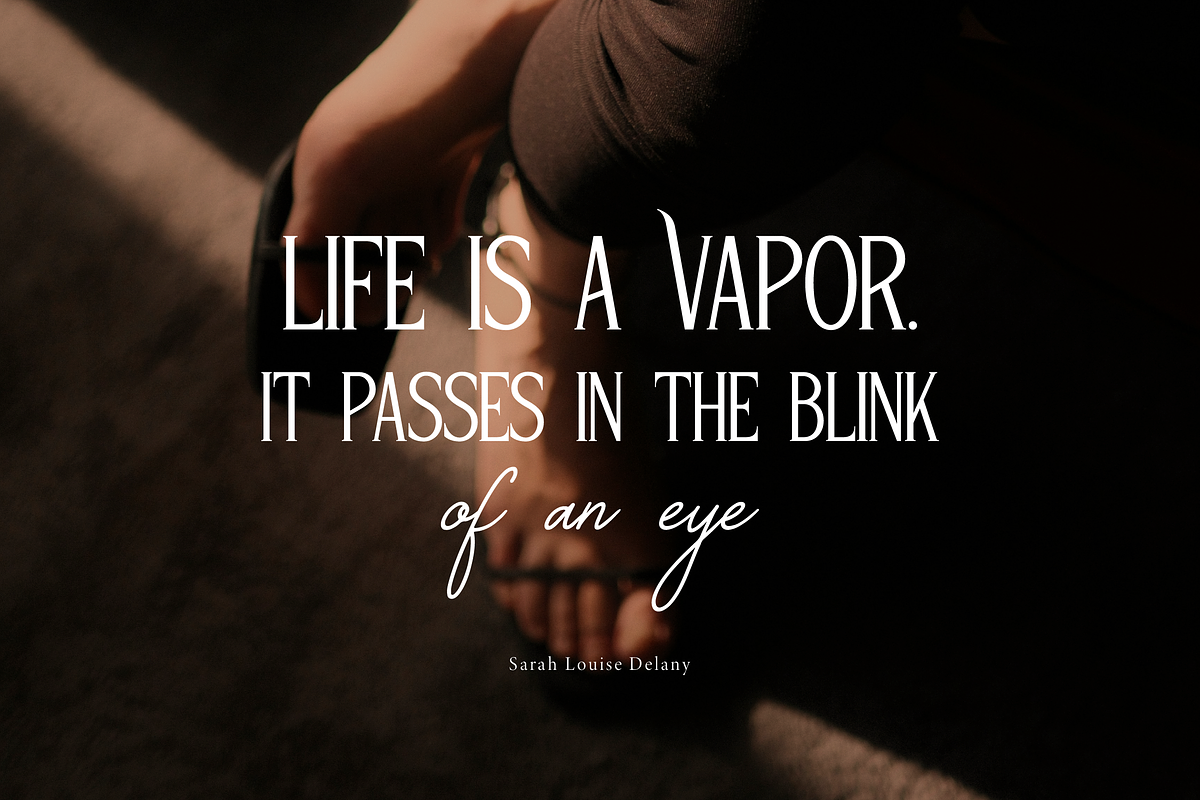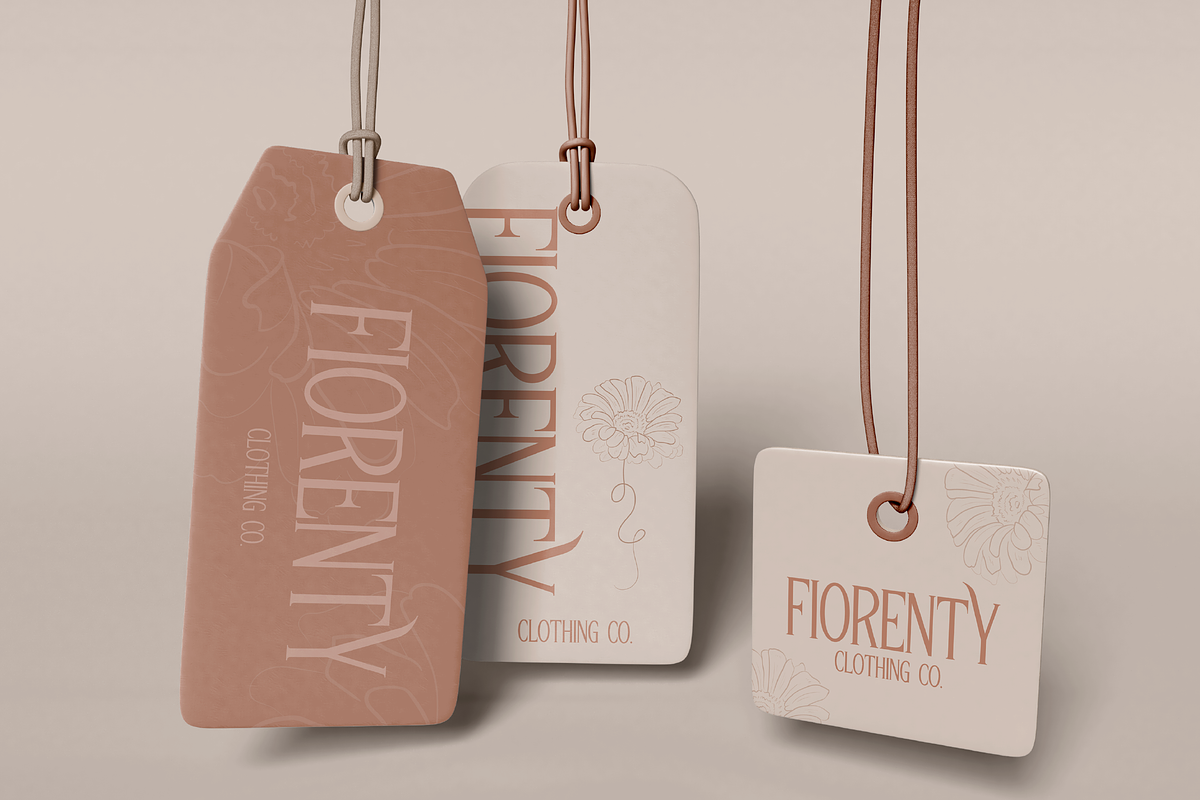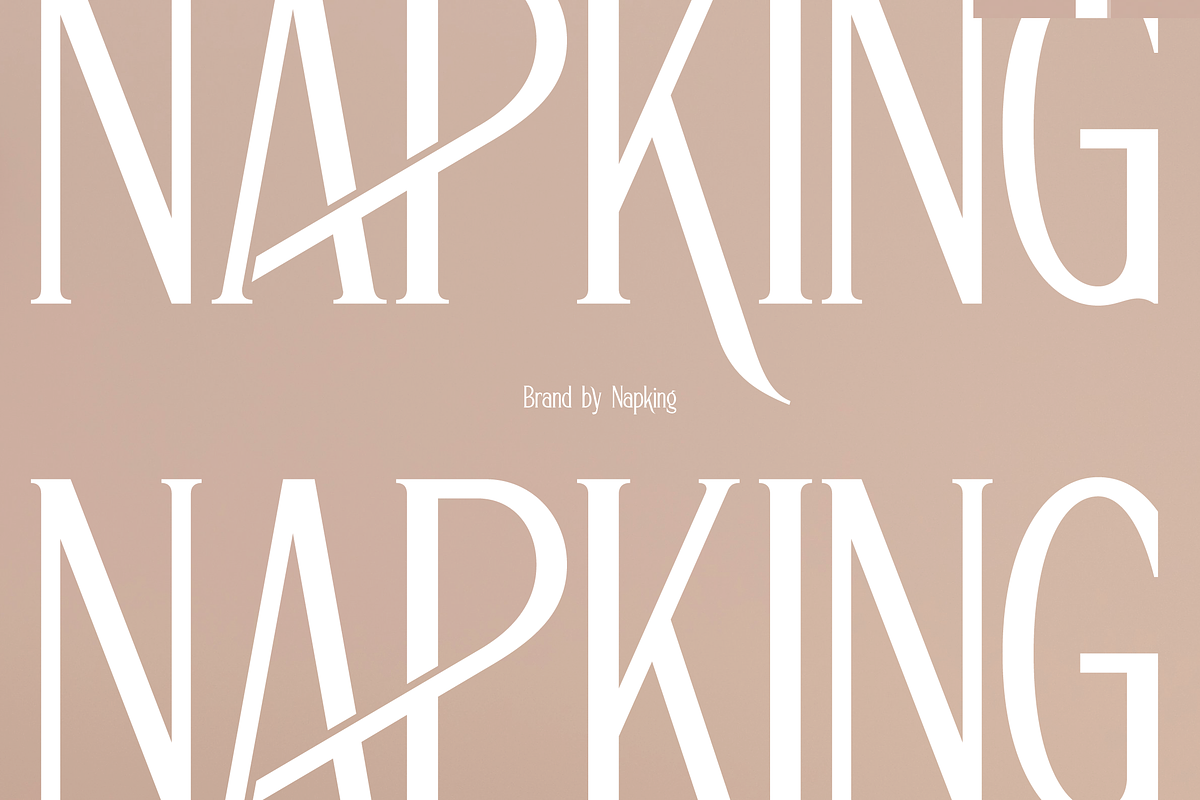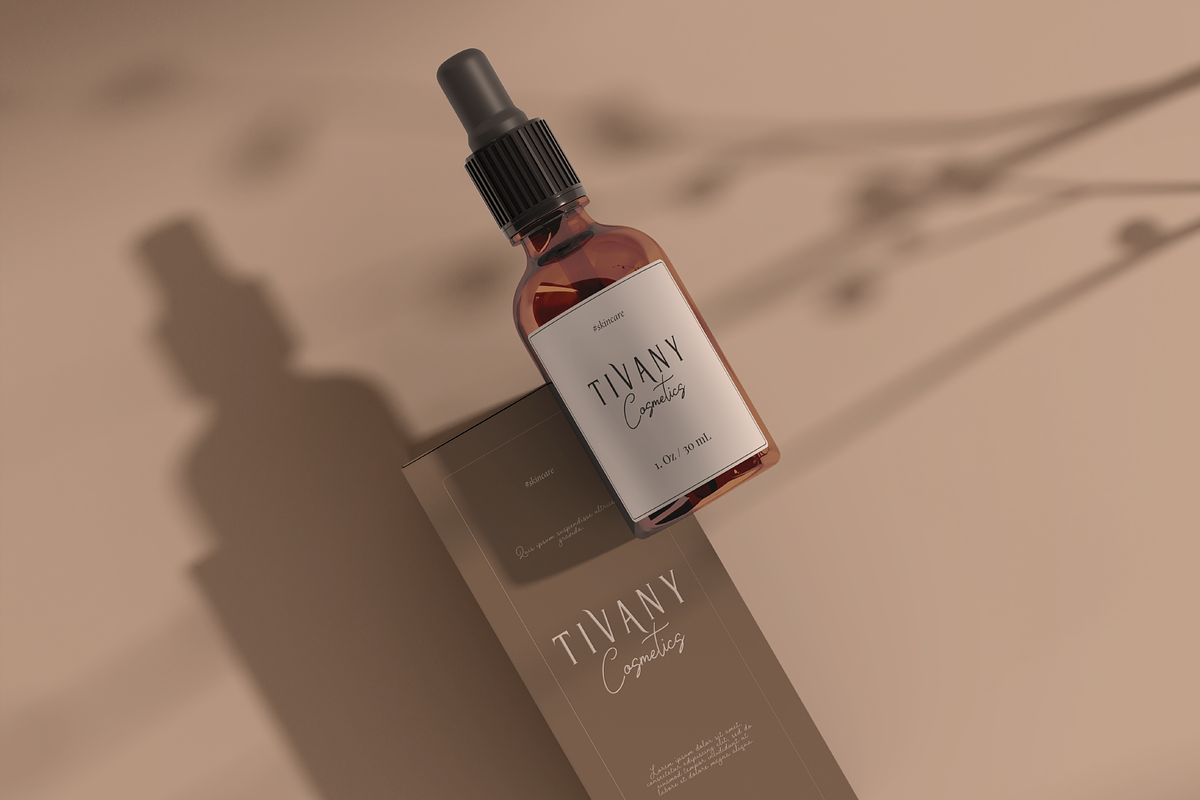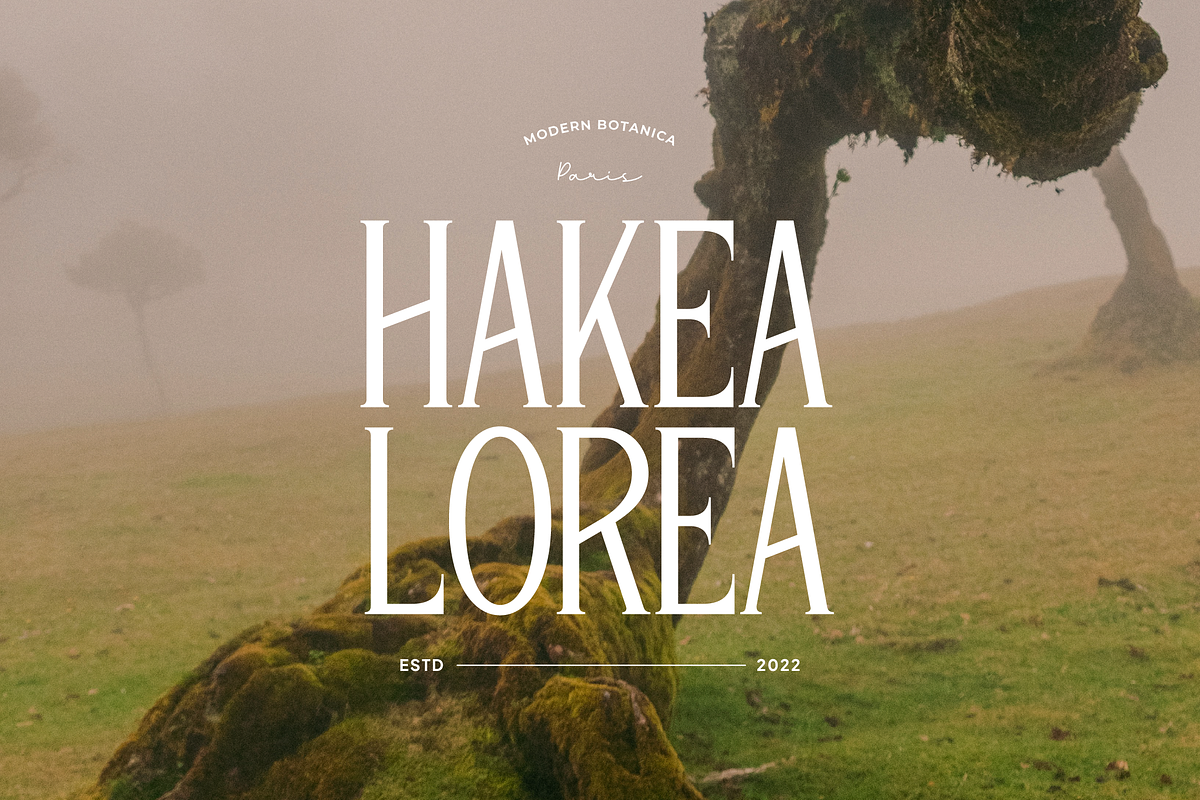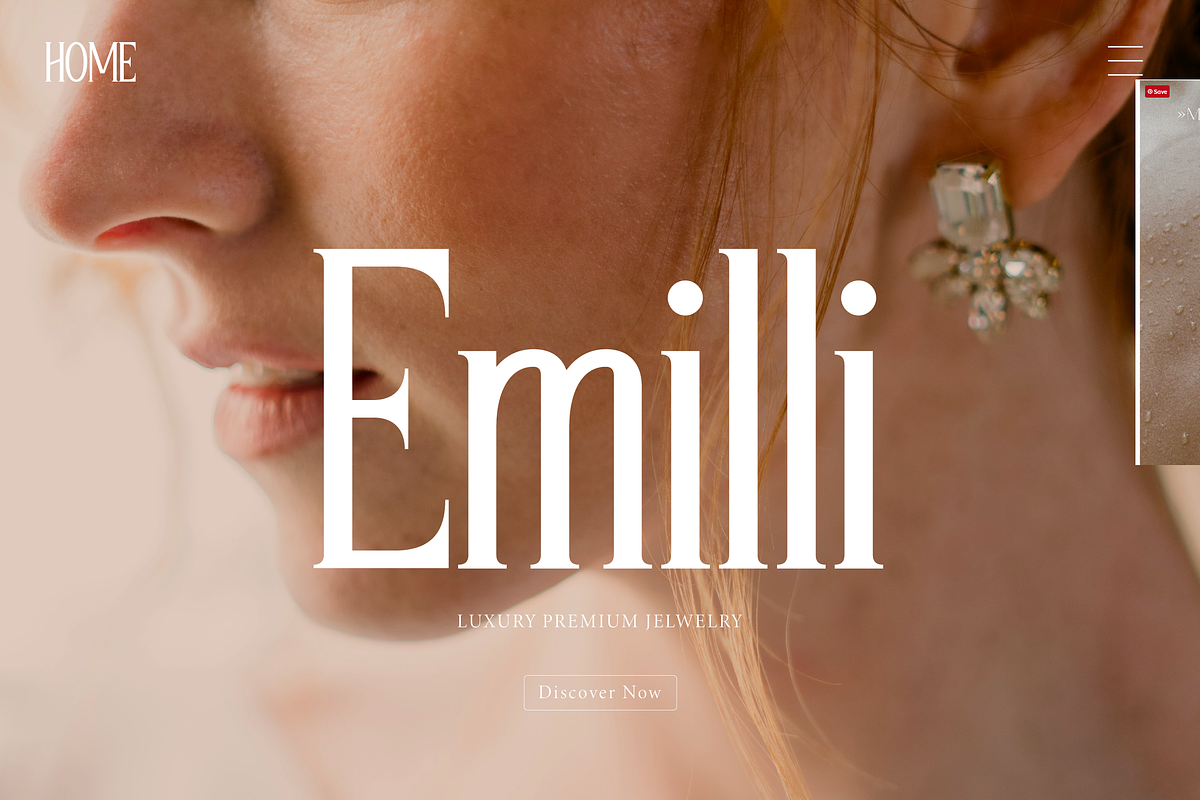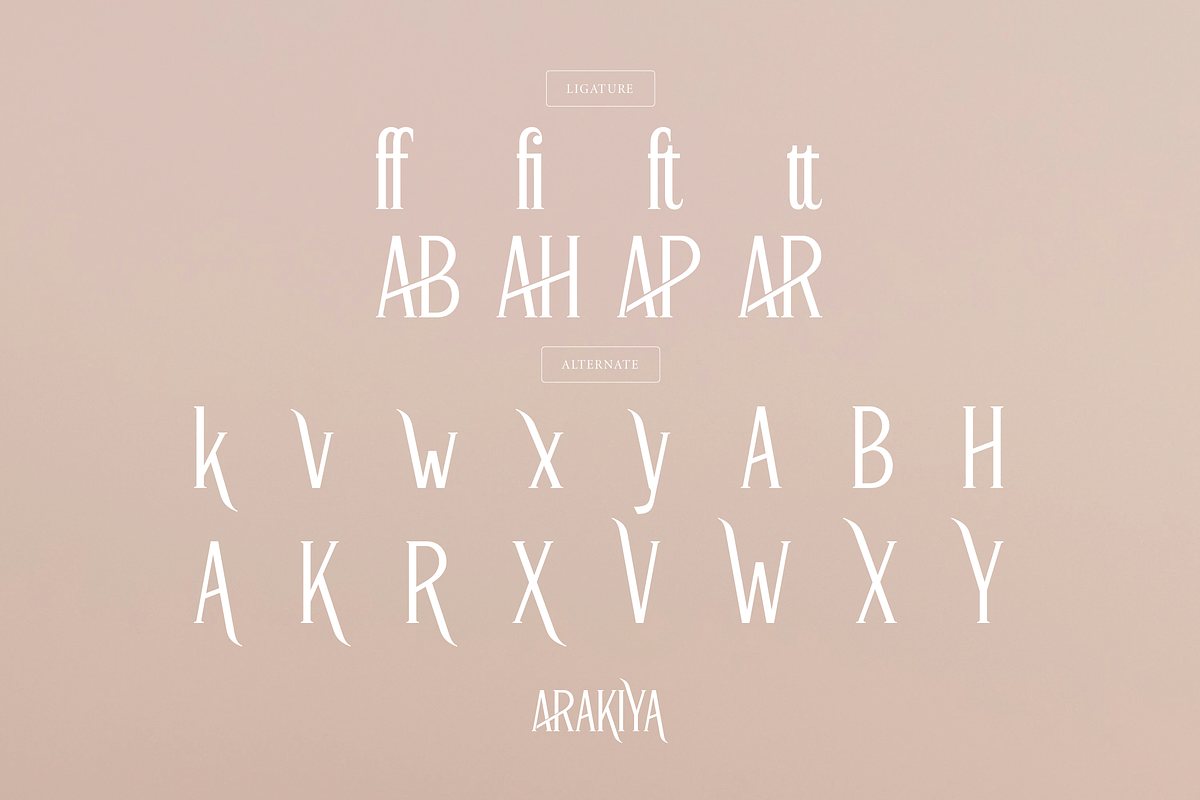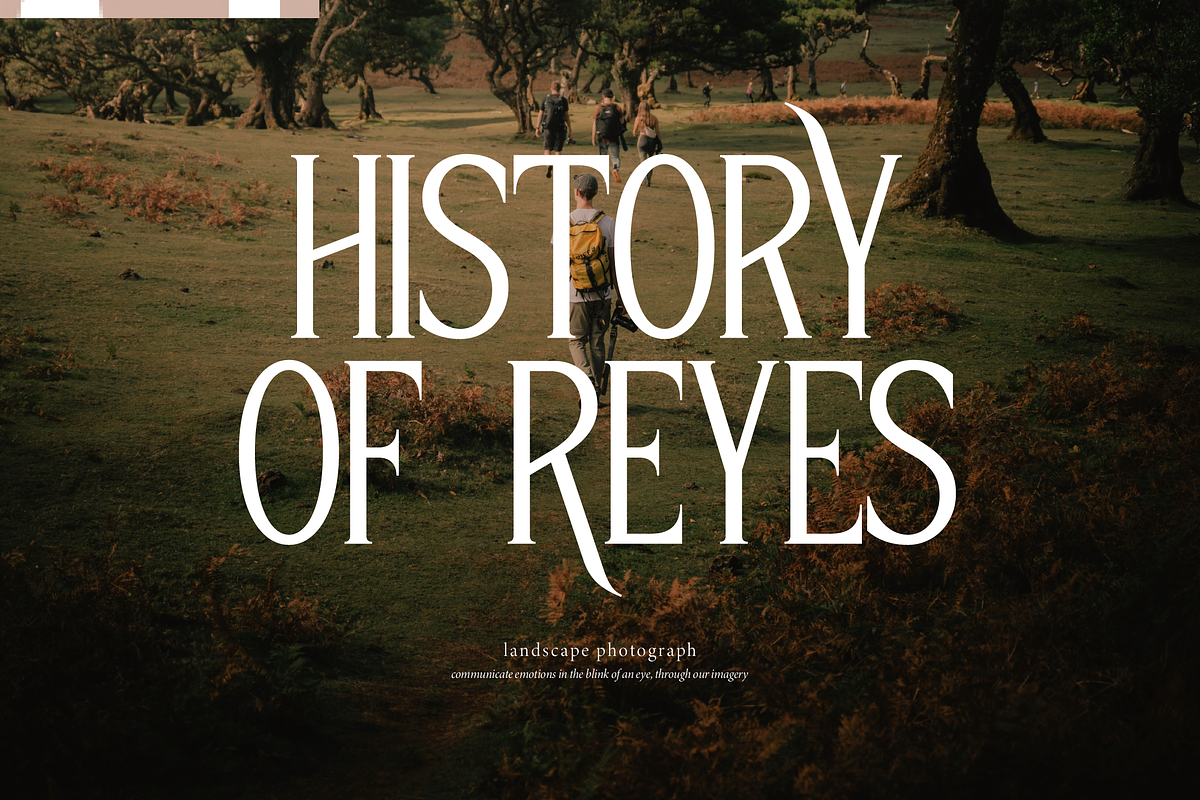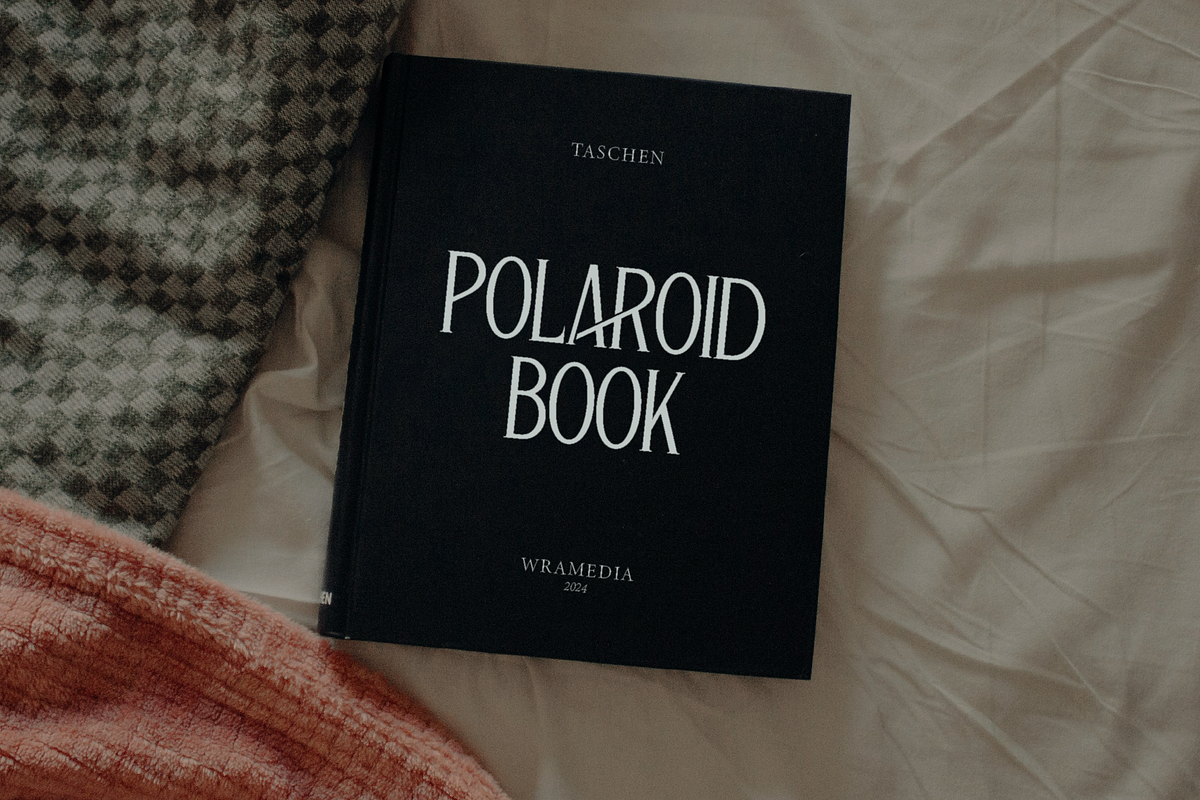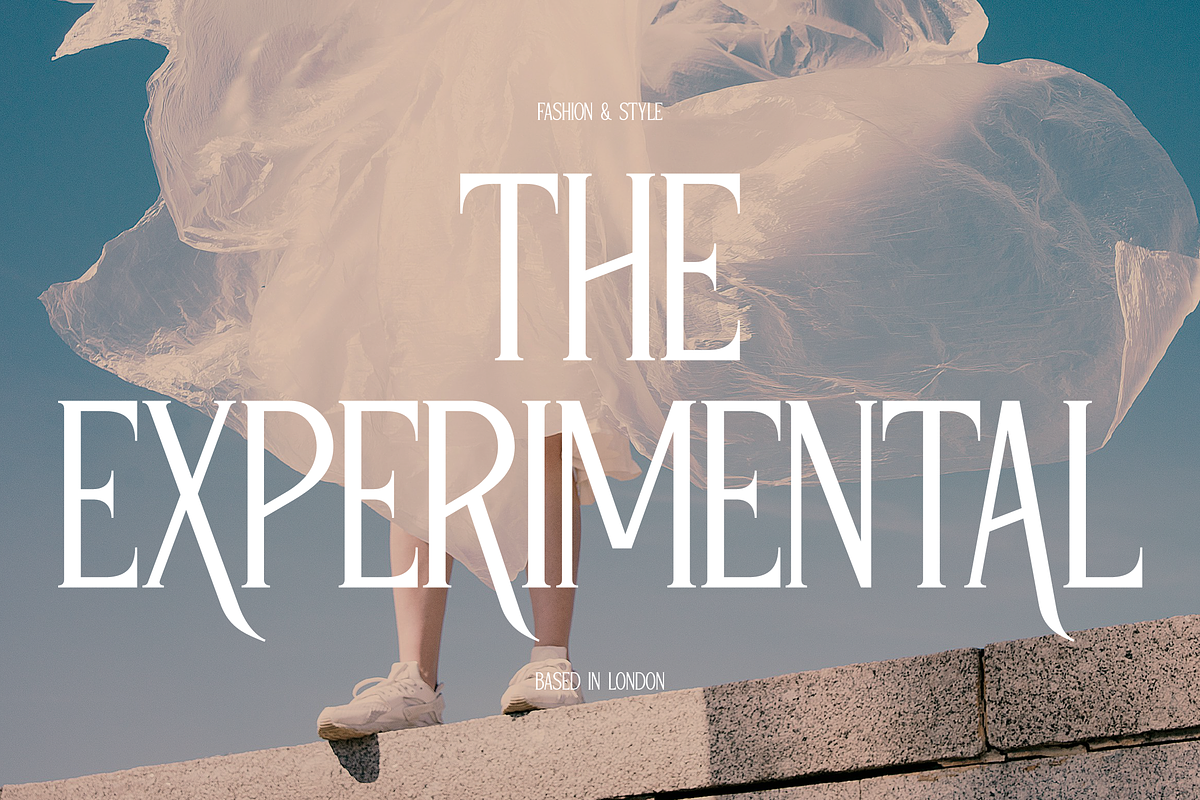
Arakiya | Unique Condensed Serif
Arakiya | Unique Condensed Serif, from Denustudios, suitable for any projects such as: logos, branding projects, homeware designs, product packaging, mugs, quotes, posters, shopping bags, t-shirts, book covers, name card, invitation cards, greeting cards, label, photography, watermark, special events, and all your other lovely projects that need a Unique Condensed Serif taste.